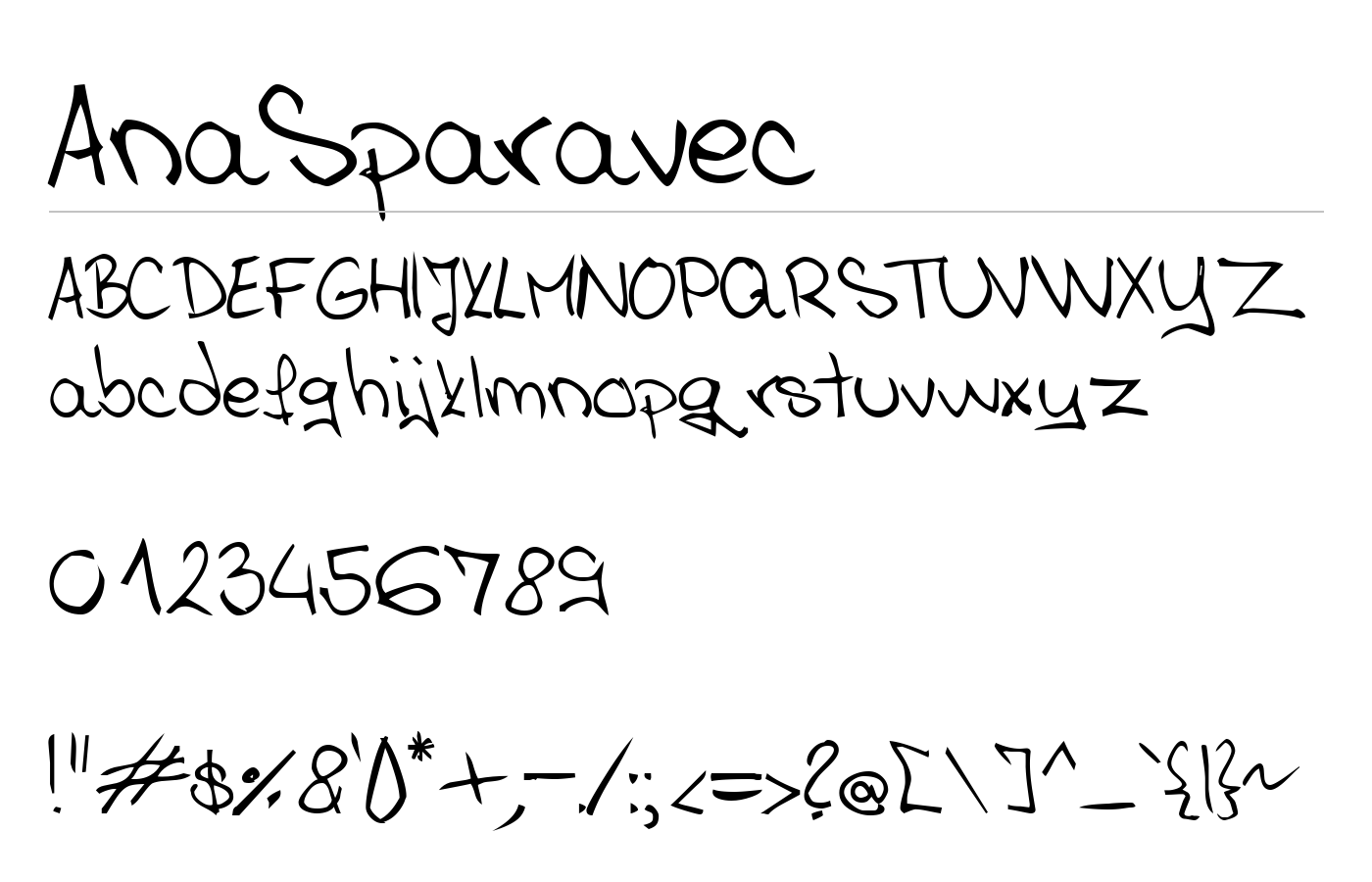
AnaSparavec is a playful, hand-drawn sans serif font with irregular, lively letterforms that convey a casual and creative vibe. Its uneven strokes and quirky character shapes make it perfect for projects seeking a friendly, informal touch, such as children's books, artistic branding, or fun posters. This font works best in display settings where its unique personality can shine and add charm to a design.
AnaSparavec Font